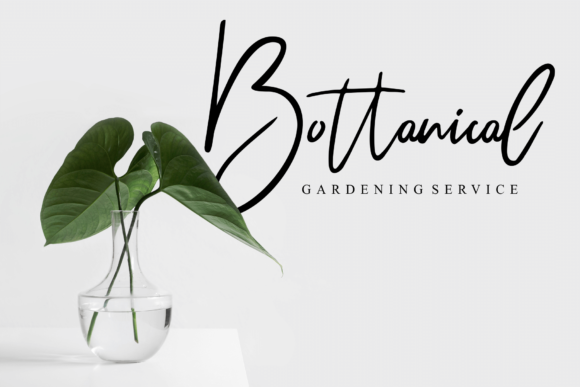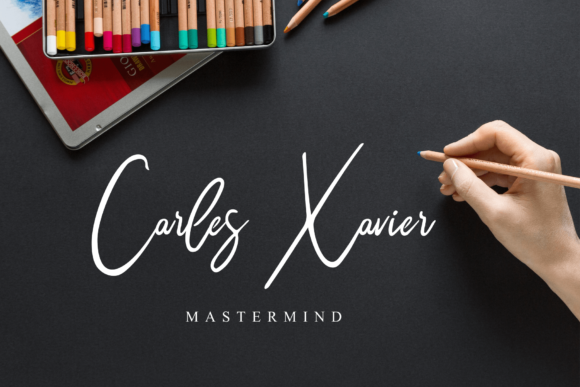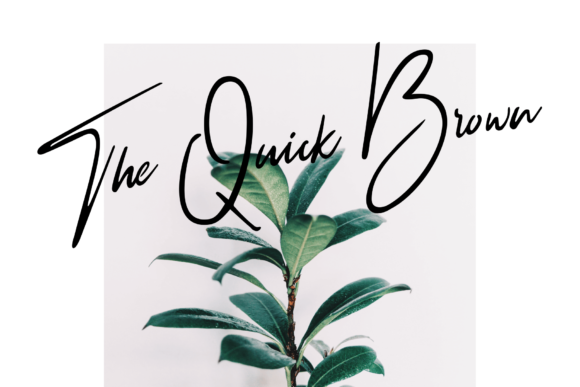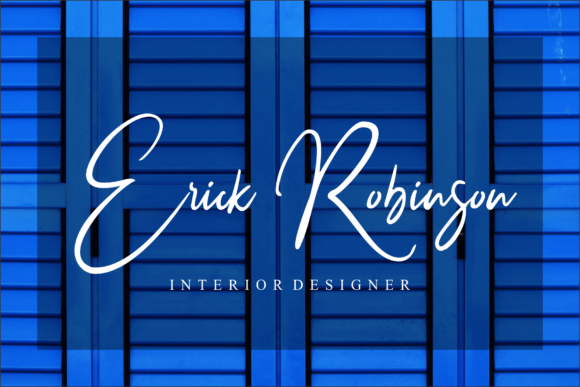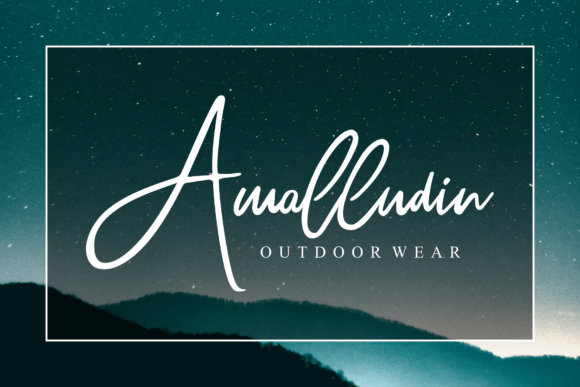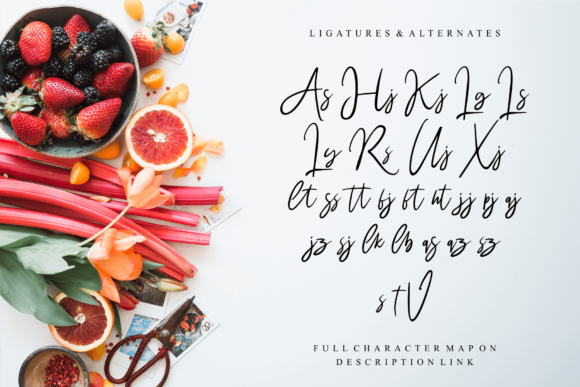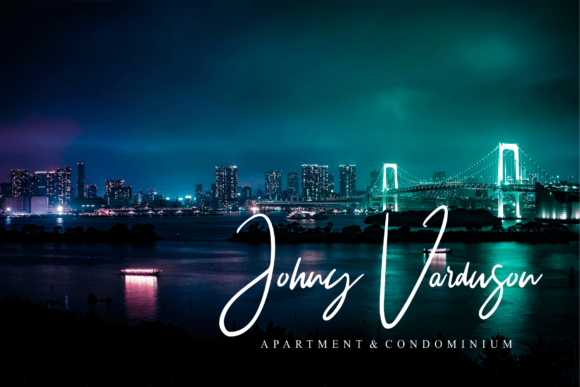
Wiltasso Font
About Wiltasso Font
The Wiltasso is an elegant signature typeface. It has an organic feel which can be used for all sorts of designing needs.